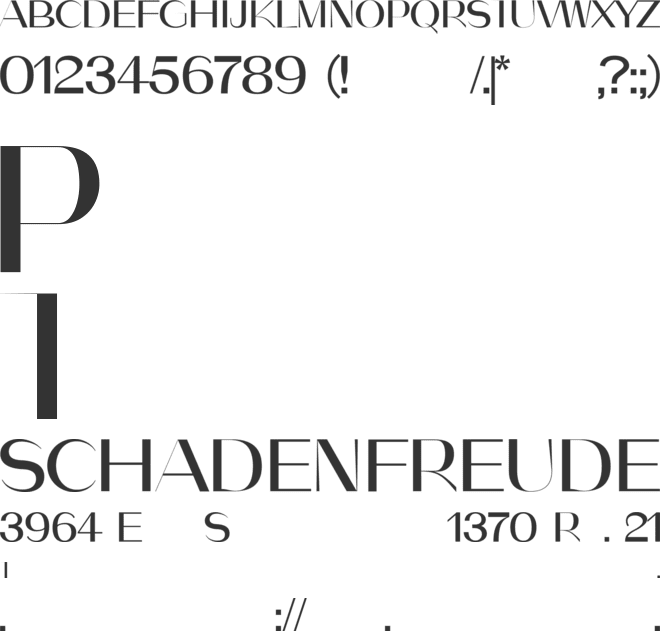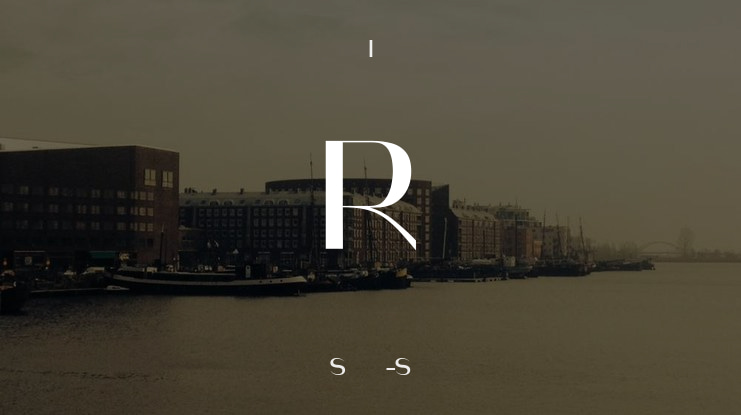
Regina Font Family
๐ŸŽจ Font Description: REGINA is an elegant sans serif with graceful ligatures and fashion-inspired charm, perfect for editorial and luxury branding.
โœ” Complete Latin set + multilingual diacritics
โœ” Alternates, stylistic sets & ligatures
โœ” Numbers, small caps, and extended punctuation
โœ” Bonus italics and family styles